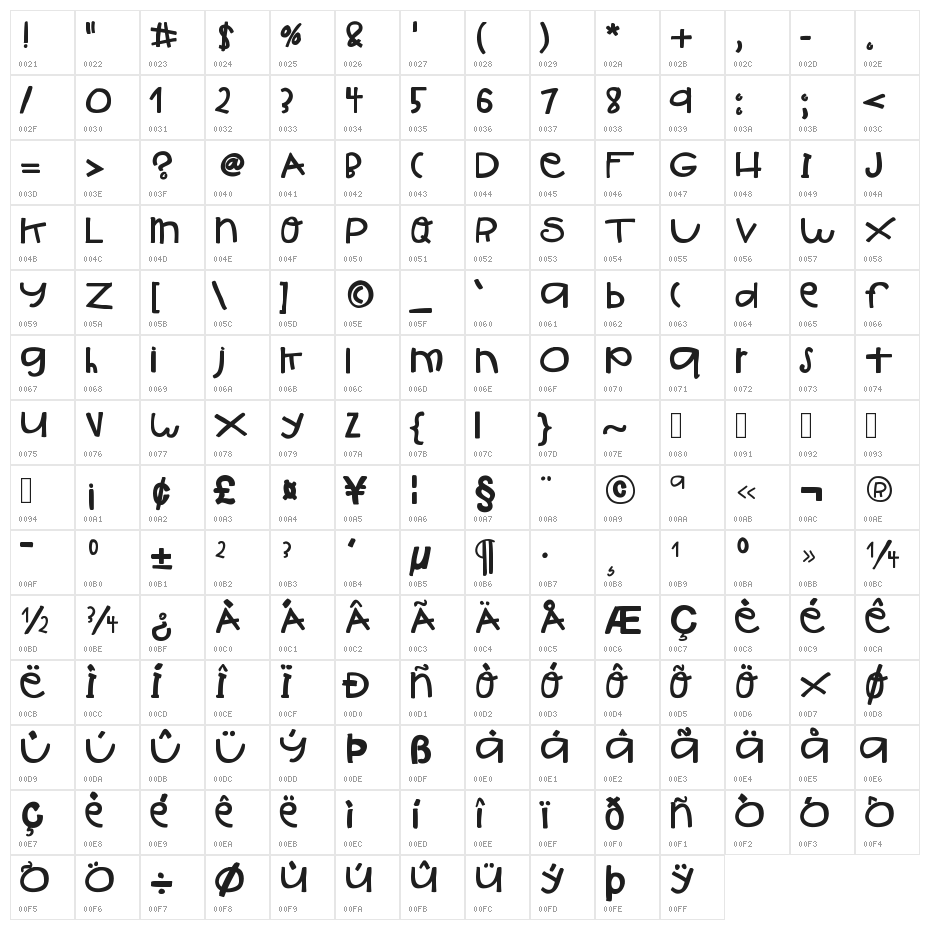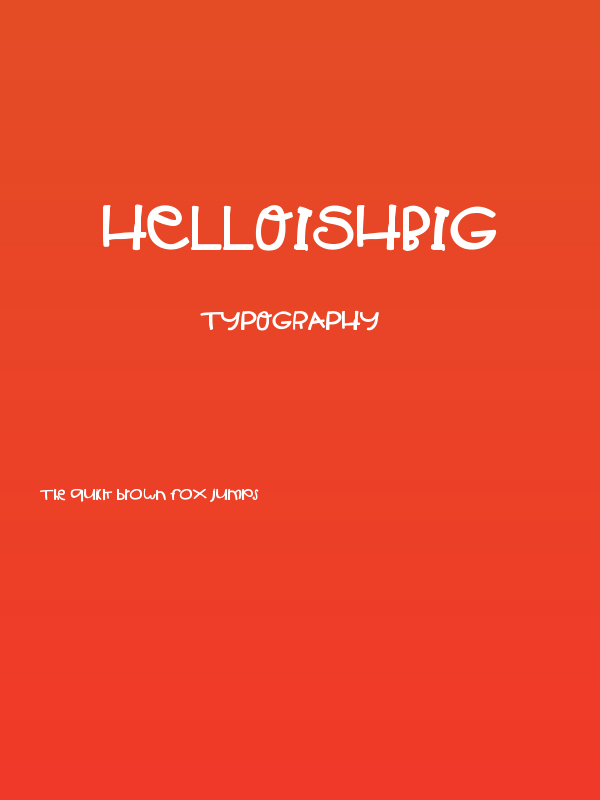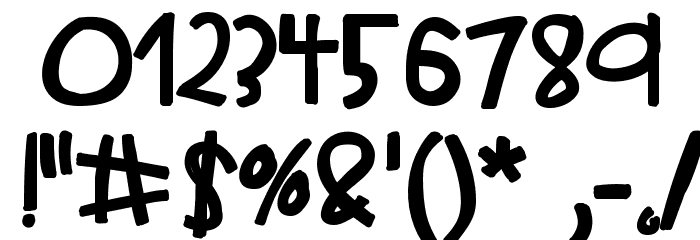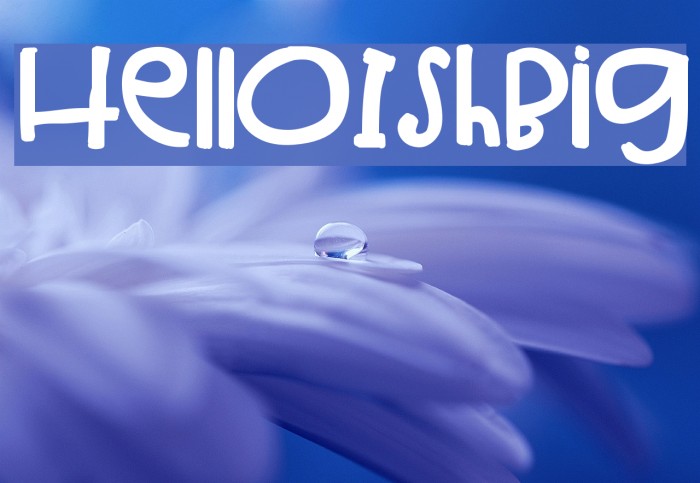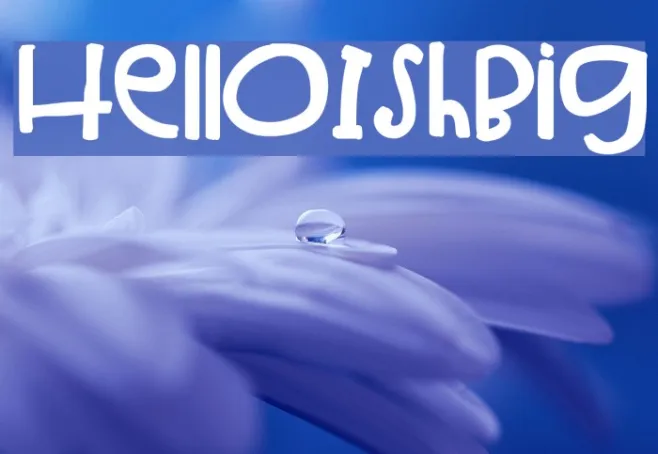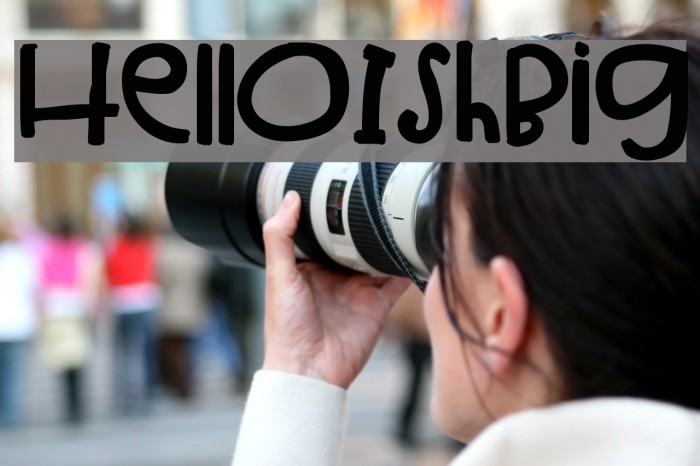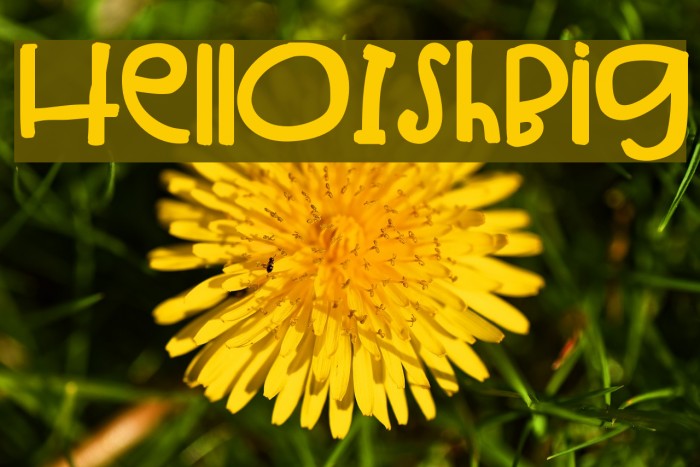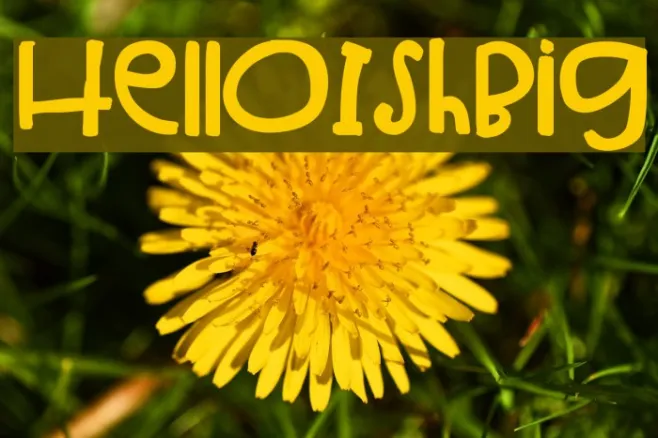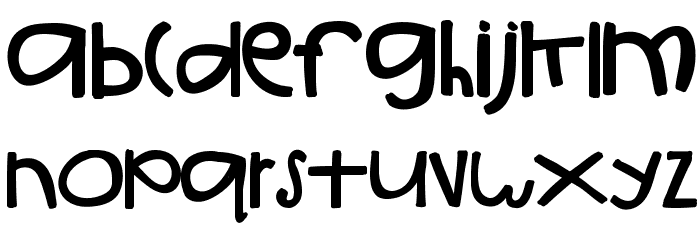
HelloIshBig Font
HelloIshBig Description
This playful and bold font features a handwritten style with a whimsical touch. The characters are rounded and slightly irregular, giving a casual and friendly appearance. The uppercase and lowercase letters maintain a consistent style, with some letters like 'a' and 'g' having unique, eye-catching forms. The numbers and special characters follow the same playful theme, making them suitable for creative projects. The font's overall look is approachable and fun, perfect for designs that aim to convey a sense of joy and informality.
| Proposed Projects | Ideal for children's books, playful branding, greeting cards, and informal invitations. |